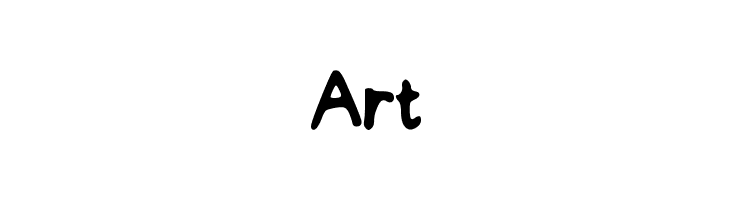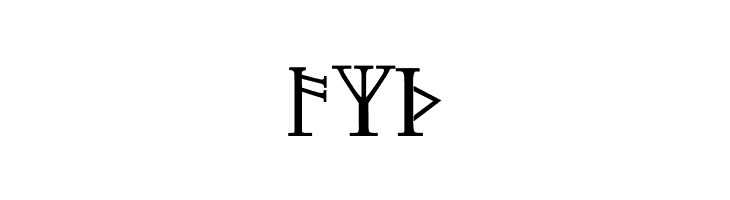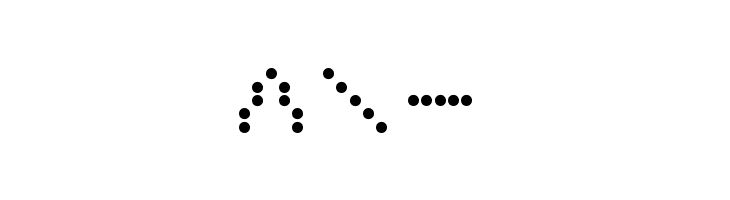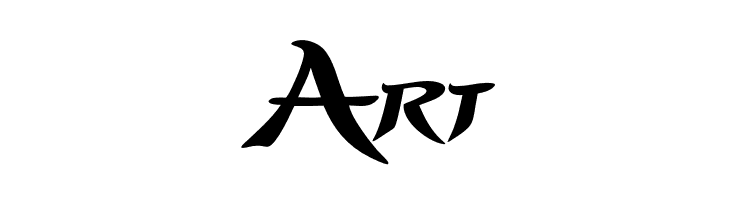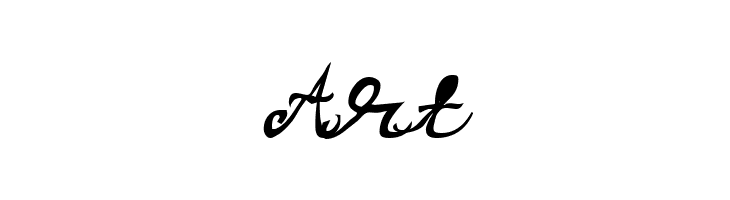
A rugged, distressed font with a bold and textured appearance.
A tall, narrow font with a modern and sleek design.
A playful, handwritten font with bold, rounded strokes and a casual style.
An ornate Blackletter font with intricate, angular designs and historical elegance.
An elegant script font with flowing, interconnected letters and a calligraphic style.
A runic-inspired font with angular, geometric shapes and medium contrast.
A pixelated, retro-style font with a digital, geometric design.
A dot-based, geometric font with a futuristic and digital aesthetic.
A bold, dynamic font with sharp, angular lines and high contrast, inspired by ancient scripts.
A decorative script font with elegant, flowing letterforms and intricate flourishes.